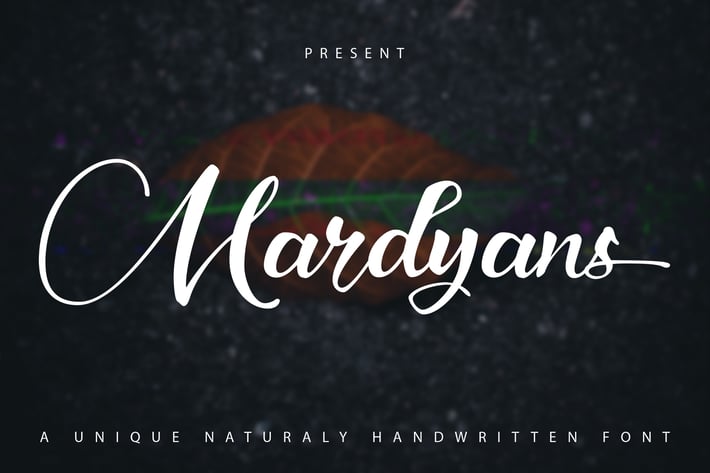
Mardyans | Unique Naturaly Handwritten Font
Mardyans | Unique Naturaly Handwritten Font with a calligraphy style, So beautiful on invitation like greeting cards, branding materials, business cards, quotes, posters, and more!